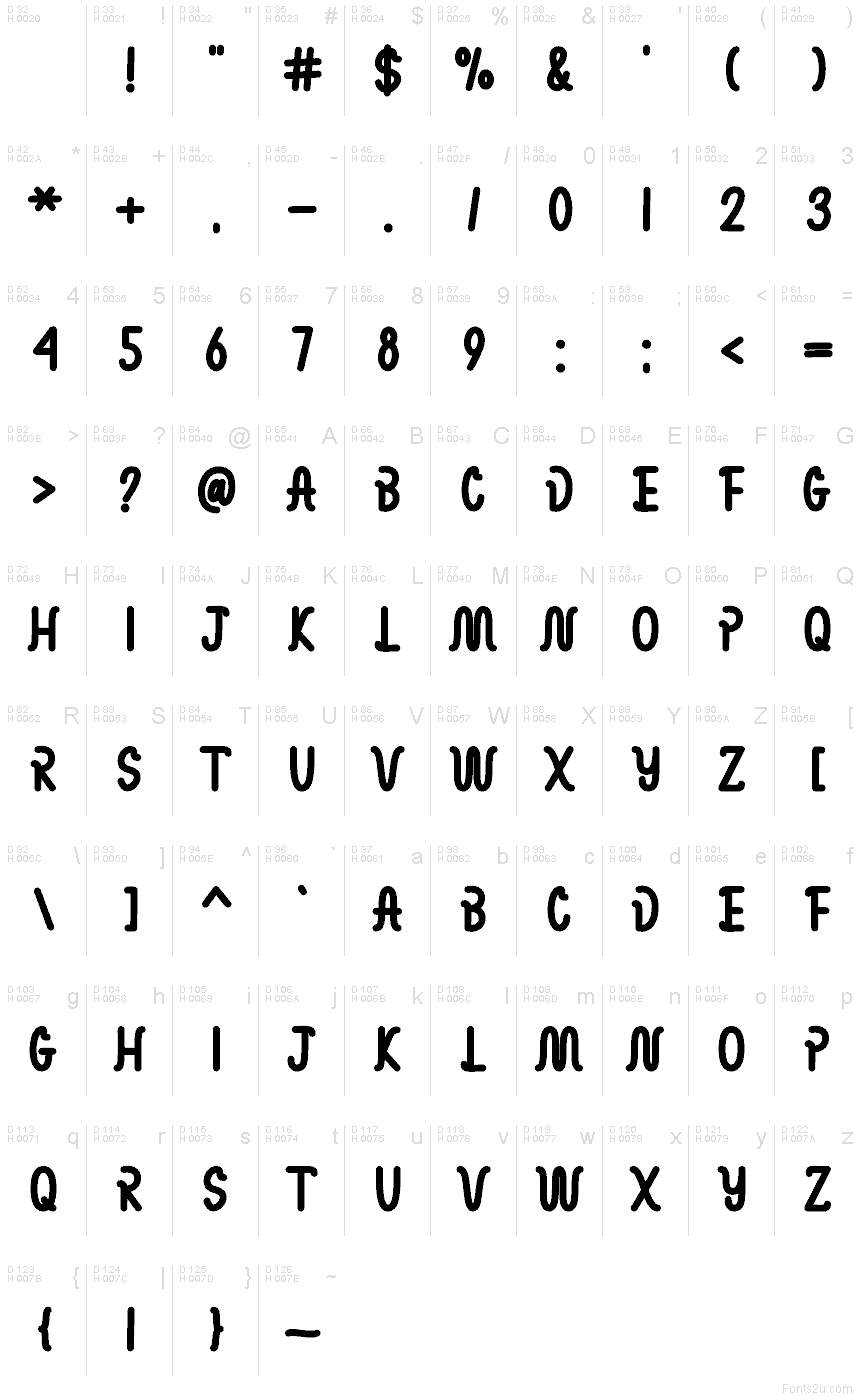
MUSHROM SANS
Mushrom Sans font by DN Creative is a free handwritten font with a whimsical retro influence. Its rounded forms offer an easy and smooth appearance that combines warmth with readability. The casual vibe of the font invites deeper engagement with readers, bringing together classic looks with a modern and light twist.
Use this beautiful type in editorial covers, cartoon book titles, short children’s stories, personal projects sketches, educational slideshows for online classes, posters for music or food festivals, vintage business indoor signage, creative social media posts (Instagram & Facebook), or movie opening credits.